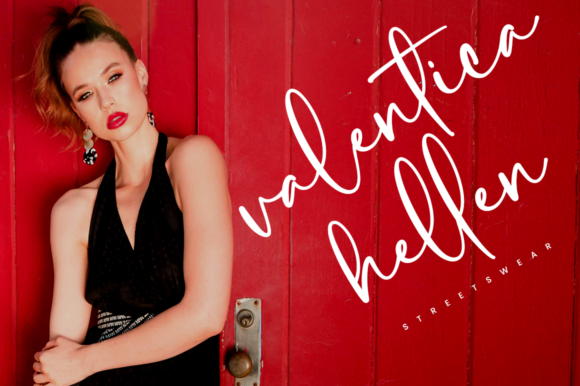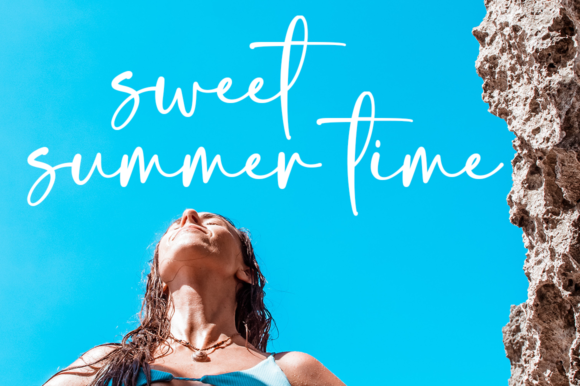
Dreams Girl Font
db-ku.com - Script & Handwritten -- Dreams Girl is a lovely and timeless handwritten font. It is the best choice for creating eye catching logos, branding and quotes. This font is PUA encoded, which means you can access all of the glyphs and swashes with ease!